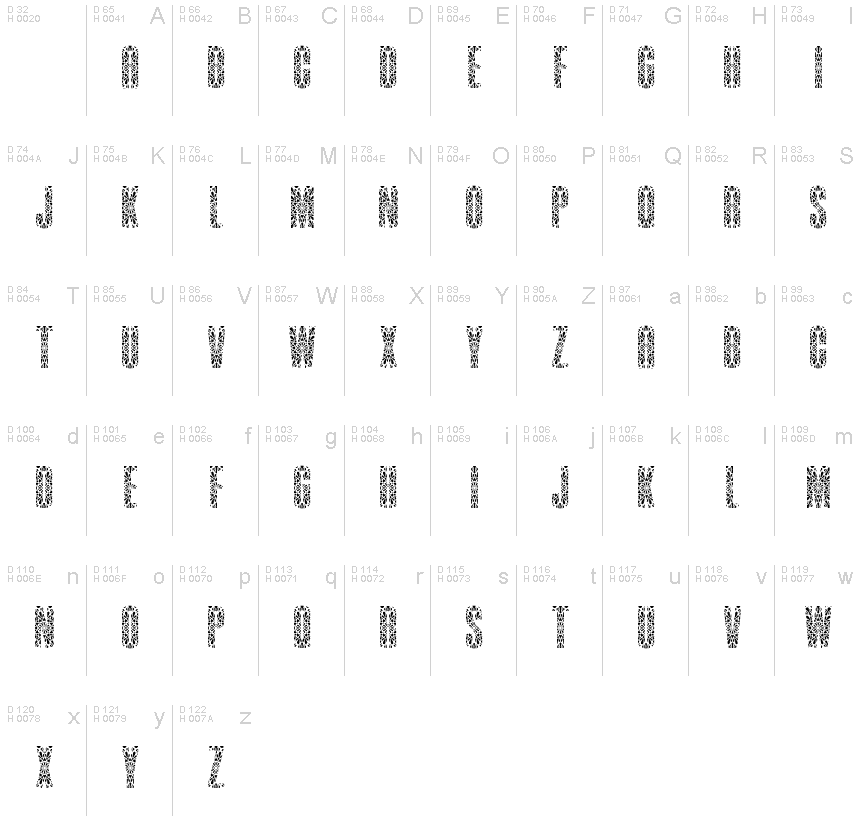
Vintage
Vintage, a mesmerizing creation by scratchones, is a captivating display font that effortlessly combines elegance and nostalgia. With its decorative style and extra-condensed width, this font is perfect for projects seeking a touch of vintage charm and sophistication. Whether you're designing wedding invitations, logo branding for hipster cafes, or creating retro-inspired posters, Vintage adds an instant dose of timeless appeal. Its unique letterforms evoke memories of bygone eras while offering a modern twist. Let Vintage transport your audience to an era where beauty and grace were celebrated in every detail.